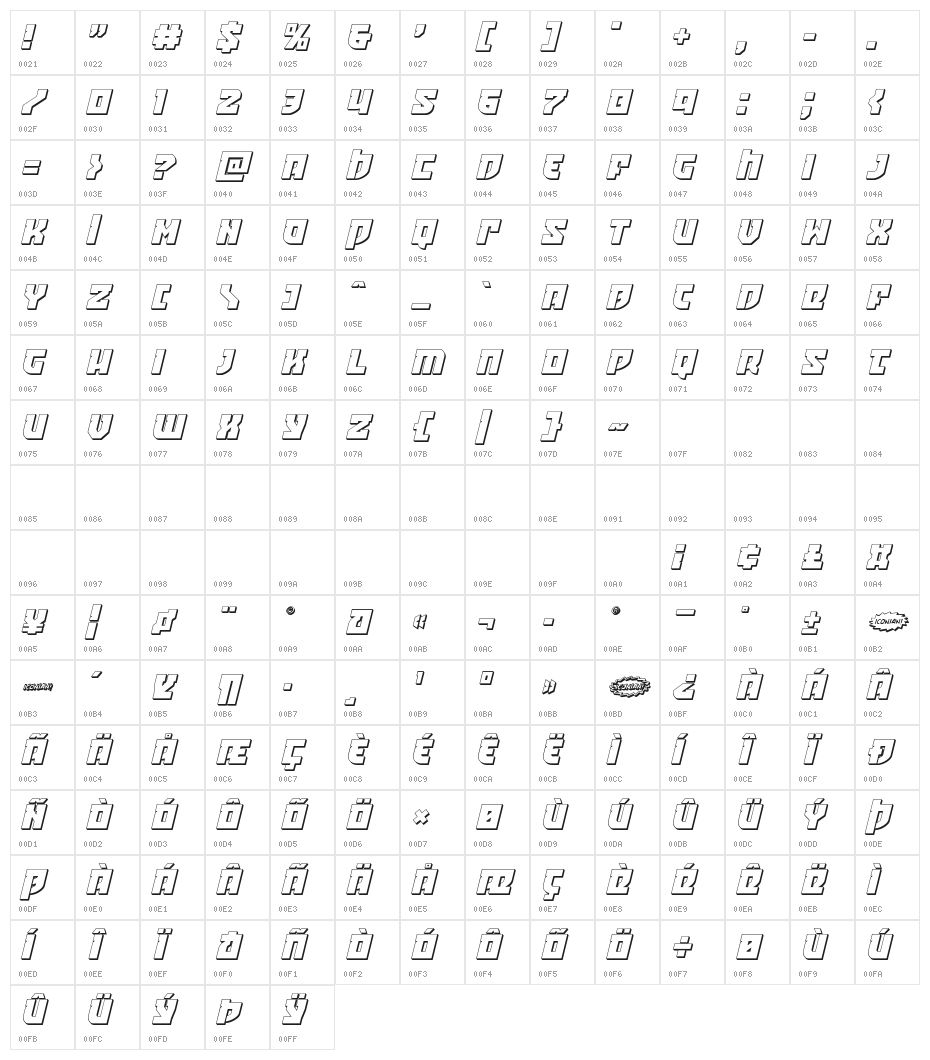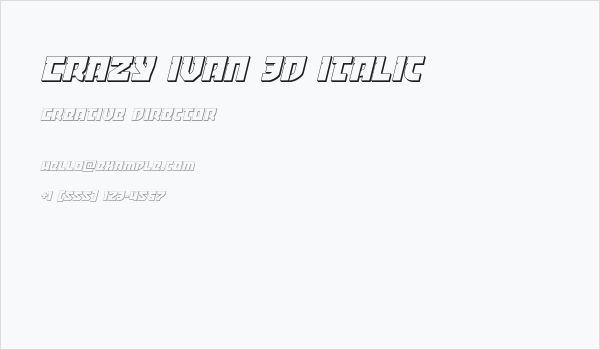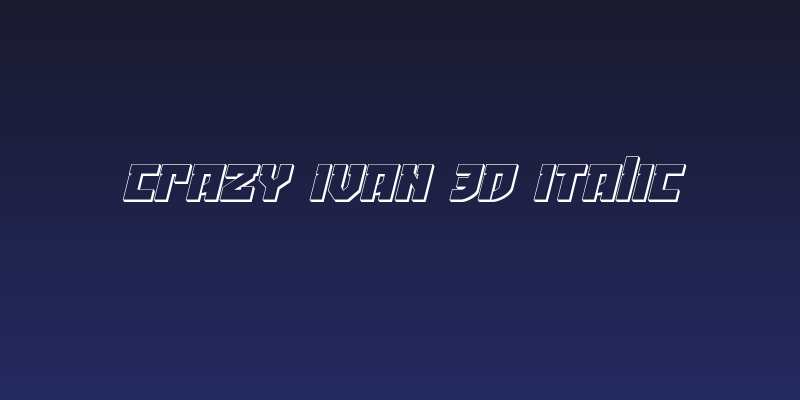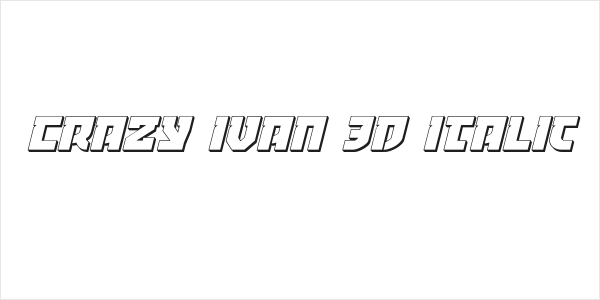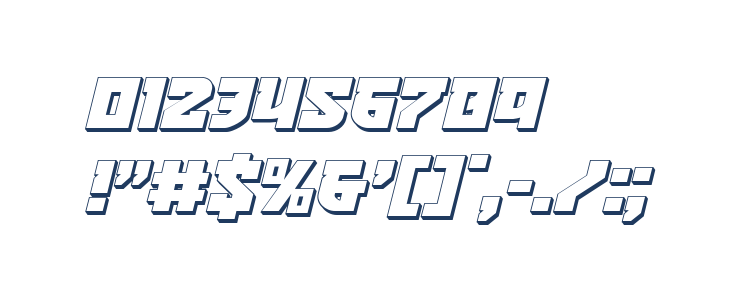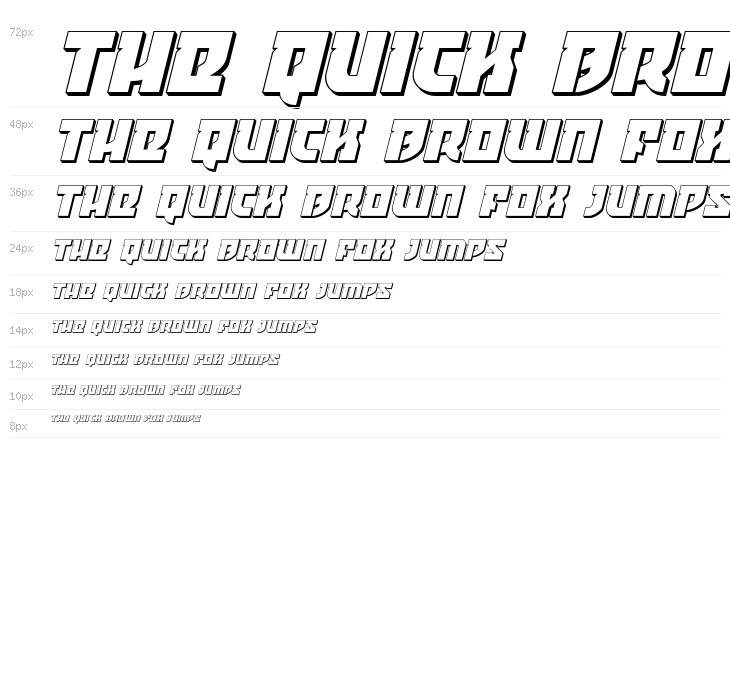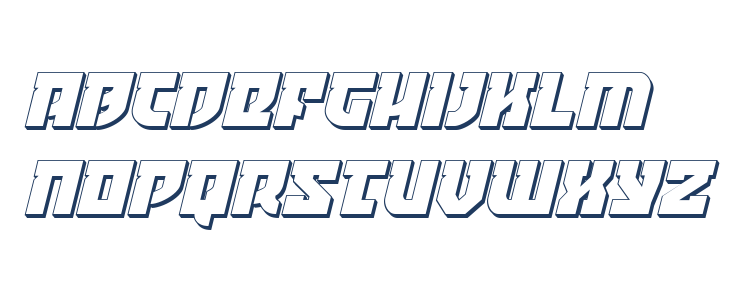
Crazy Ivan 3D Italic Font
Crazy Ivan 3D Italic Description
This font features a bold, three-dimensional design with an italic slant, giving it a dynamic and futuristic appearance. The characters are outlined, creating a shadow effect that enhances the 3D illusion. The angular and geometric shapes of the letters contribute to a modern and edgy style, making it stand out in any design. The uppercase and lowercase letters maintain a consistent style, with sharp edges and a uniform width. The numerals and special characters follow the same design principles, ensuring a cohesive look across all text elements.